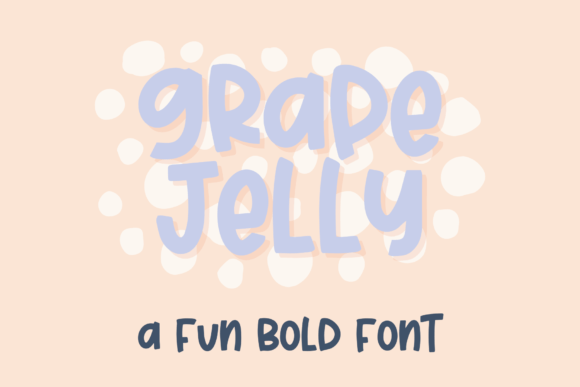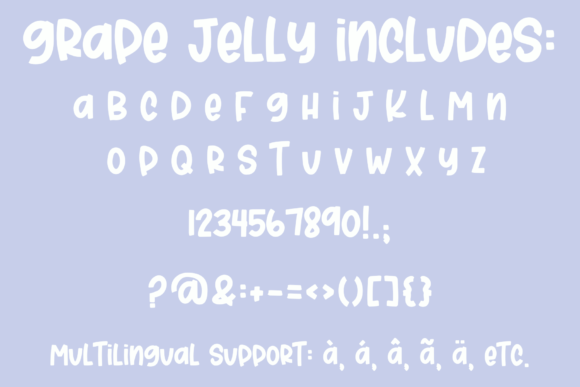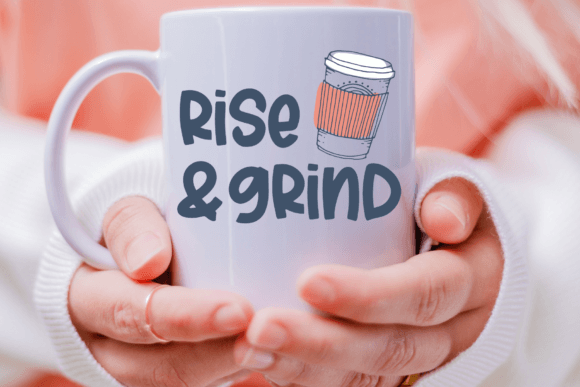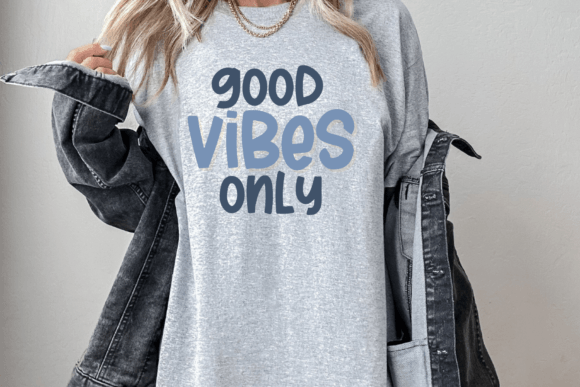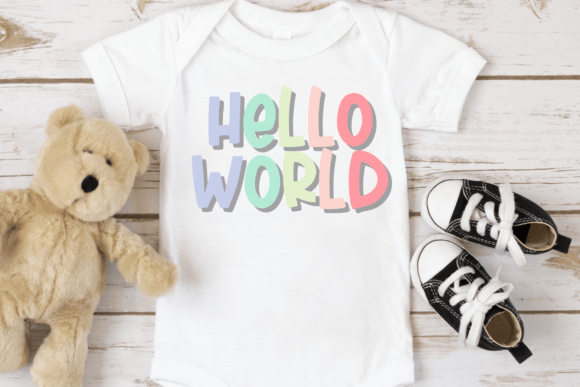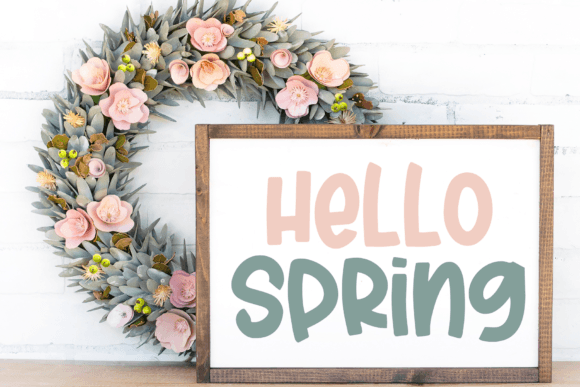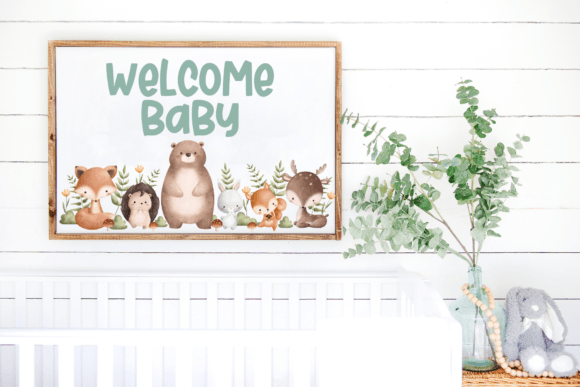
Get Ready to Unleash Your Creativity with Grape Jelly Font
Have you ever been brainstorming a fun project, and suddenly, the perfect font pops into your head? For many designers, it’s that magical moment when everything comes together, and the creative juices start flowing. For me, it was a bright and colorful design for a birthday card that needed just the right touch. That’s when I discovered Grape Jelly Font – a playful, bold handwritten font that adds a personal touch to any project.
Designed to bring a smile to your face, Grape Jelly Font is perfect for a wide range of applications, from greeting cards and t-shirt designs to stickers, social media, and crafts. Its versatility and unique charm make it a valuable addition to any designer’s toolkit. Whether you’re a seasoned pro or just starting out, Grape Jelly Font has the potential to elevate your creative ideas to new heights.
Grape Jelly Font Key Features
- Font Family: Grape Jelly Font is a unique, hand-drawn font with a whimsical and playful feel.
- Character Set: Includes a wide range of characters, including uppercase and lowercase letters, numbers, punctuation, and special characters.
- Unique Characteristics: Features a distinctive, hand-drawn style with subtle imperfections, giving it a charming and organic feel.
Grape Jelly Font Review
Grape Jelly Font is a fun and playful font that’s perfect for adding a pop of color and whimsy to your designs. I love how it ✨ adds a sense of excitement and energy to any project.
Here are some of the things that work well with Grape Jelly Font:
- ✨ It’s perfect for creating eye-catching headlines and titles
- ✨ The font’s bold and vibrant colors make it ideal for branding and marketing materials
- ✨ It’s great for adding a touch of fun and personality to your designs
However, I do have a few concerns about Grape Jelly Font:
- ⚠️ The font can be a bit overwhelming if used in large quantities
- ⚠️ The bold colors may not be suitable for all audiences or contexts
- ⚠️ The font’s style may not be suitable for more formal or professional projects
Overall, I think Grape Jelly Font is a great addition to any designer’s toolkit. While it may have some limitations, it’s perfect for projects that need a bit of flair and personality. Just be sure to use it judiciously and in context.
The Grape Jelly Font is ideal for creating playful and whimsical designs. Use it for:
- Summer-themed designs and graphics
Remember to pair the Grape Jelly Font with complementary colors and graphics to create a visually appealing design.
Alternatives to Grape Jelly Font
Carolyna Pro is a modern sans-serif font that offers a clean and elegant aesthetic. It is suitable for use in branding, advertising, and editorial design. When to use: For projects that require a professional and sophisticated look. Comparison: Carolyna Pro is more versatile and professional compared to Grape Jelly Font, which has a more playful and whimsical feel.
Great Vibes is a beautiful, hand-drawn script font that adds a touch of elegance and sophistication to any design. It is ideal for use in wedding invitations, branding, and packaging design. When to use: For projects that require a touch of whimsy and romance. Comparison: Great Vibes is more elegant and sophisticated compared to Grape Jelly Font, which has a more playful and casual feel.
Playfair Display is a luxurious and elegant serif font that adds a touch of sophistication to any design. It is suitable for use in high-end branding, advertising, and editorial design. When to use: For projects that require a sense of luxury and sophistication. Comparison: Playfair Display is more elegant and luxurious compared to Grape Jelly Font, which has a more playful and casual feel.